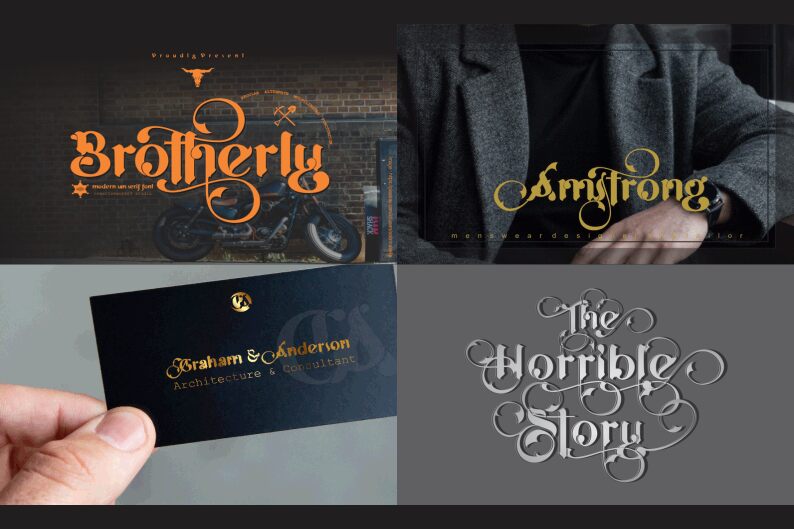
Brotherly is a unique and striking gothic font designed by the talented team at Creativework69 Studio. Its semi-bold weight adds just the right amount of heft to make a statement without overpowering your text. This versatile typeface is perfect for creating bold headlines, logos, and posters, as well as adding a touch of Gothic flair to your website or social media graphics. Whether you're designing for a horror movie poster, heavy metal band logo, or anything in between, Brotherly will give your project an edgy and distinctive look that's sure to grab attention.
Brotherly